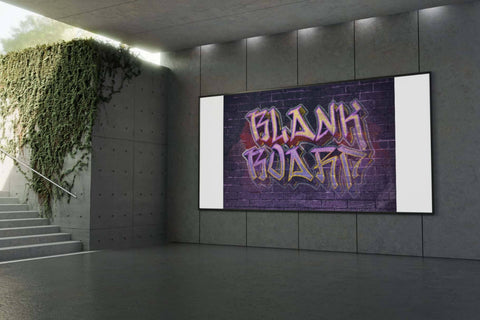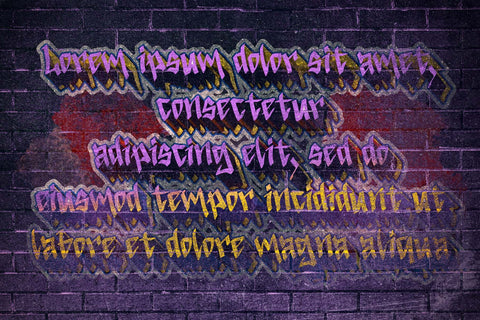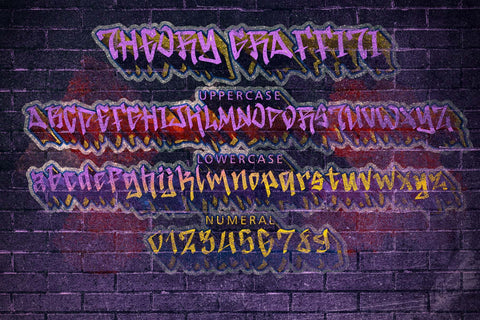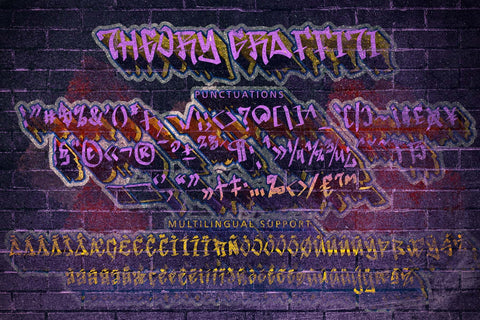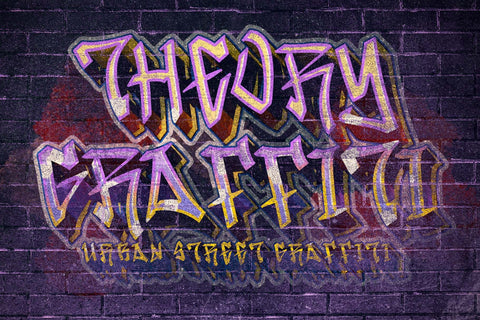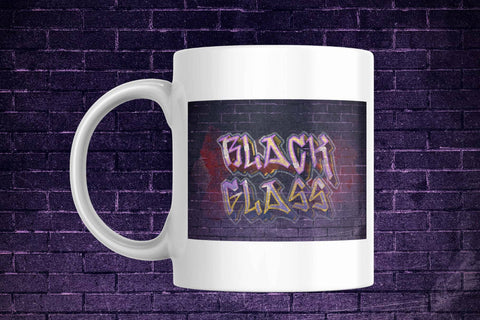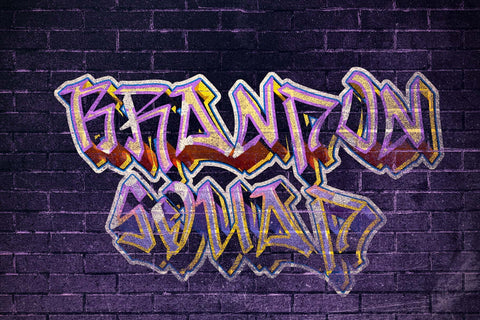
Theory Graffiti
"Theory Graffiti" is a unique and elegant graffiti font. It comes with uppercase, lowercase, numbers, punctuation, and multilingual support. Perfect for business branding, stickers, wall art, urban art, tattoos, banners, branding, prints, logos, graffiti, winter, christmas, halloween, and more.